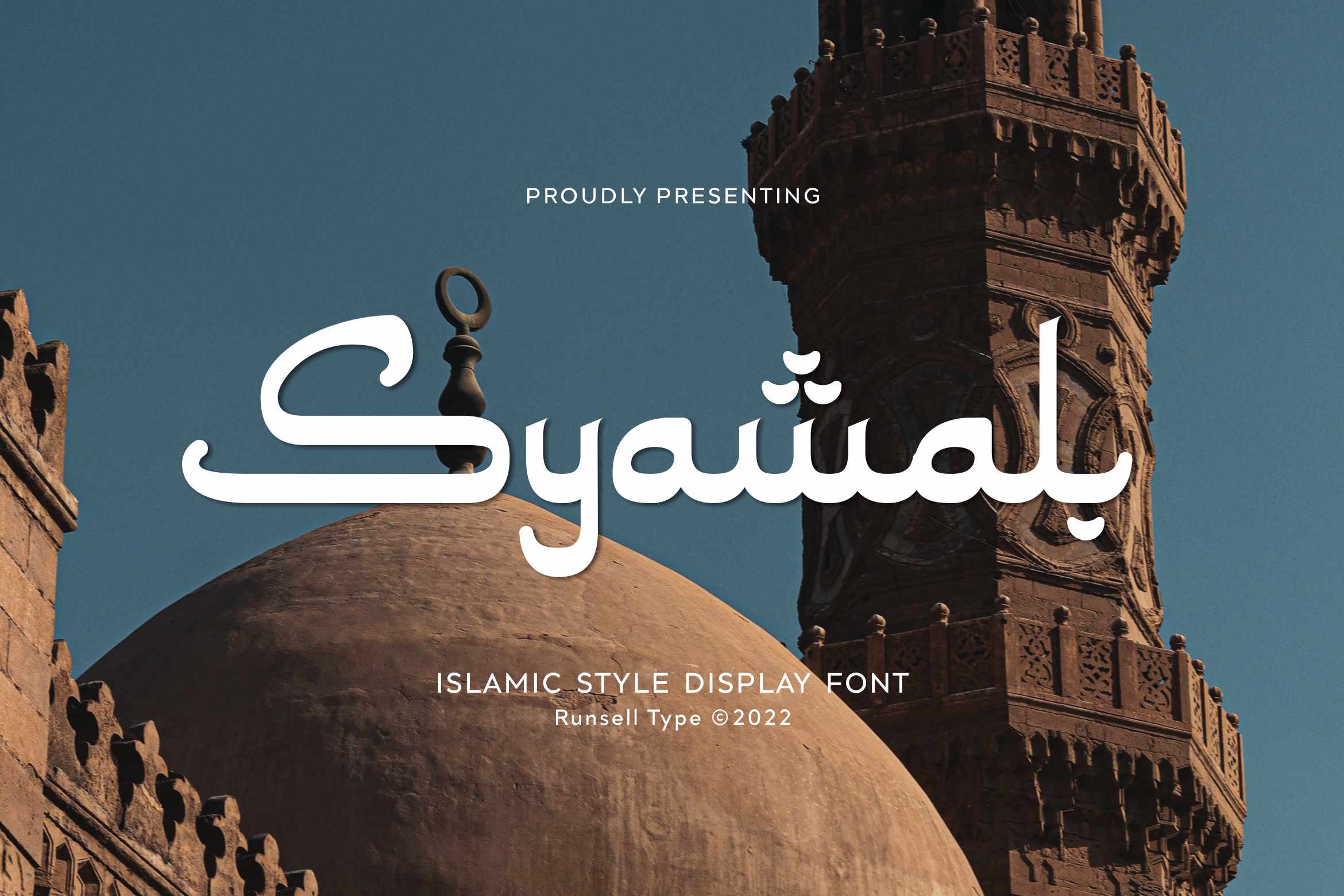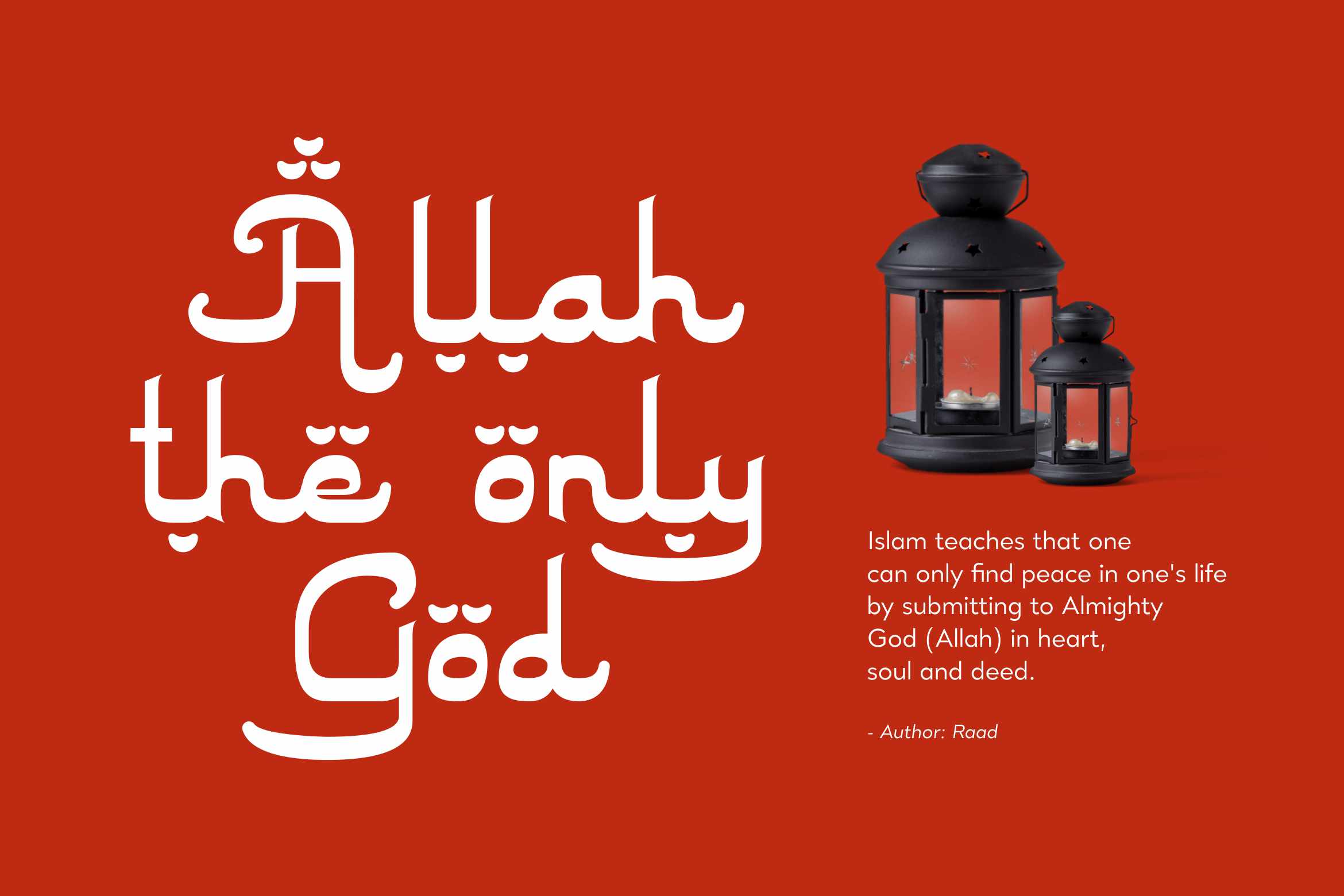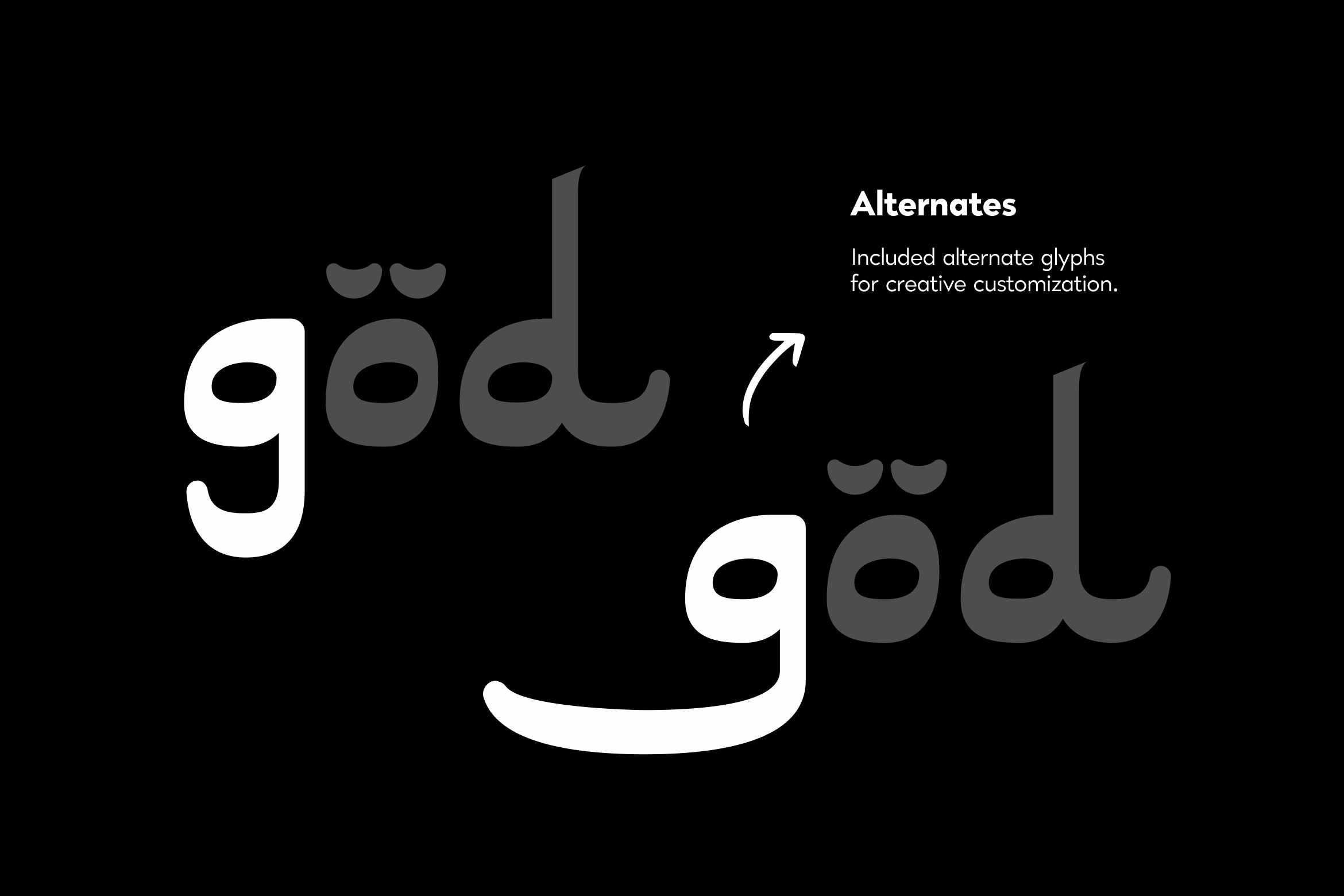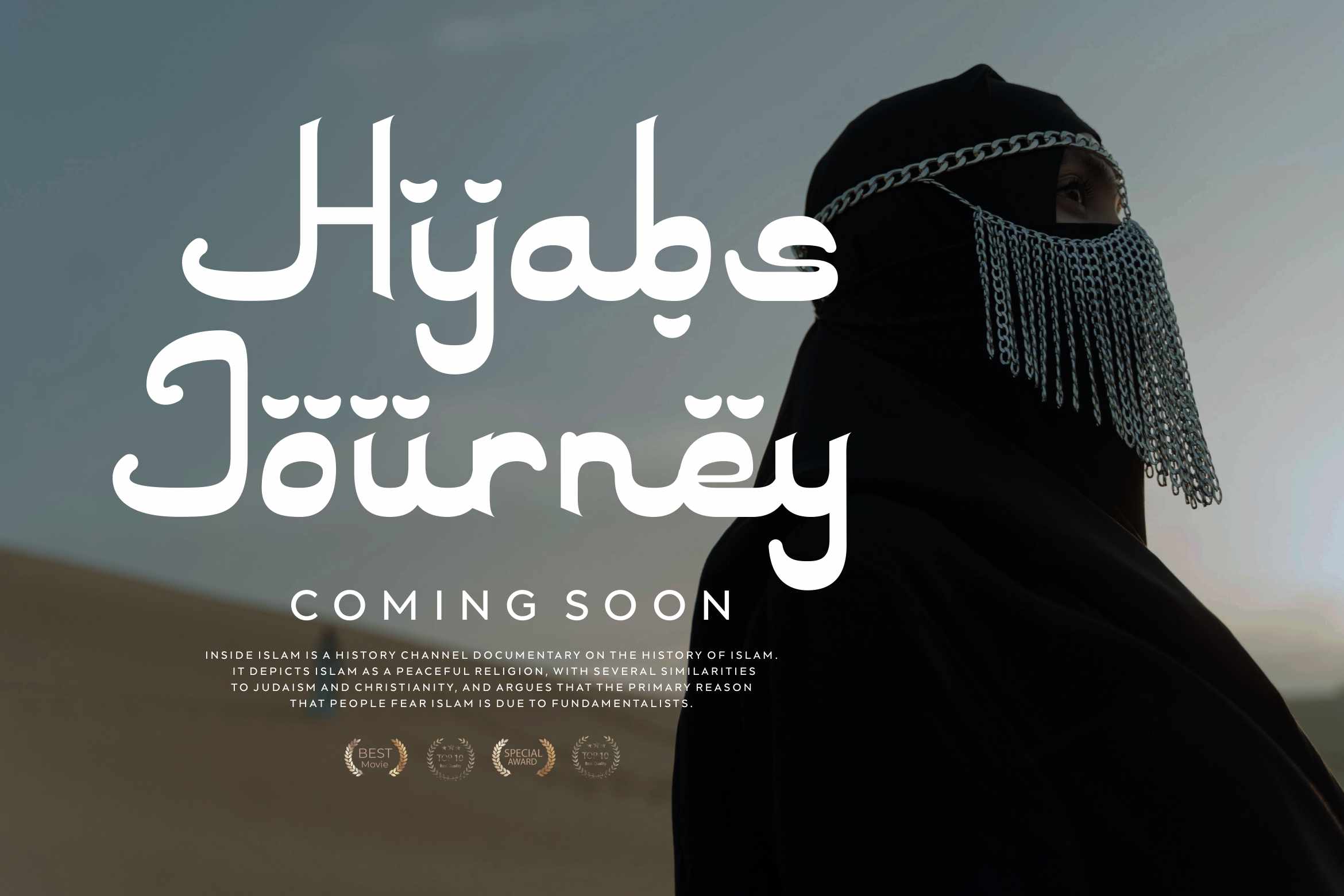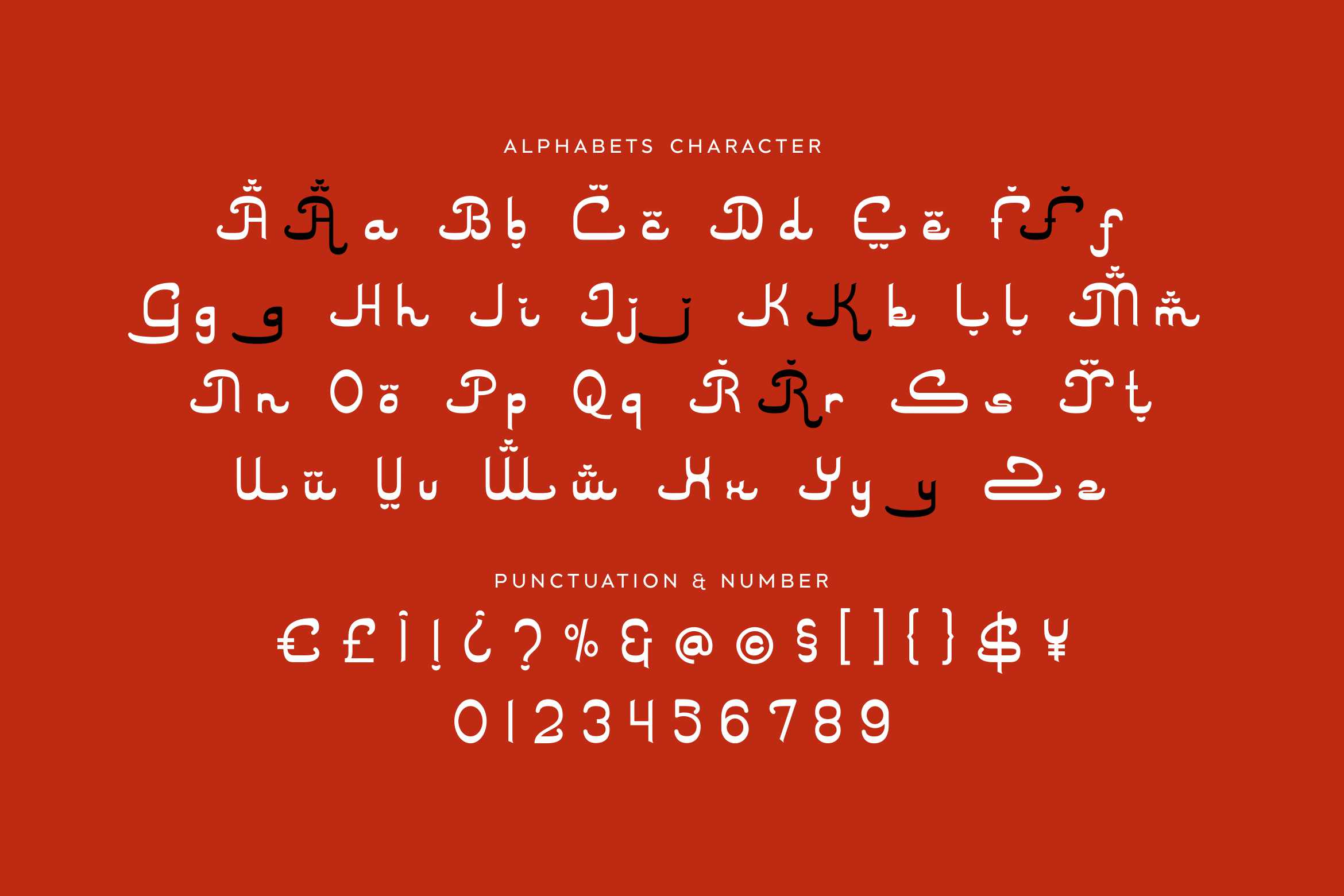
Syawal is a distinctive Islamic-style display font that merges cultural depth with modern elegance. With its unique calligraphic curves inspired by Arabic script and bold Latin strokes, Syawal offers a harmonious balance between tradition and contemporary design. The font’s rounded terminals and flowing ligatures lend a soft, approachable character, making it ideal for spiritual quotes, branding, and editorial headlines that aim to honor Islamic visual heritage.
This font also includes various stylistic alternates and special diacritic glyphs, allowing users to personalize compositions with greater visual nuance. Whether you’re designing for religious campaigns, educational materials, or creative Ramadan content, Syawal brings expressive warmth and clarity to the message it carries. It’s versatile, legible, and deeply rooted in cultural artistry.
Syawal